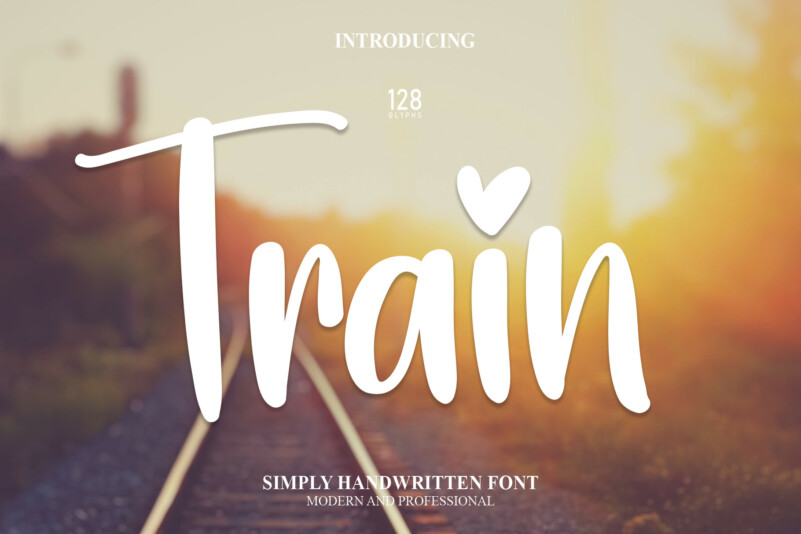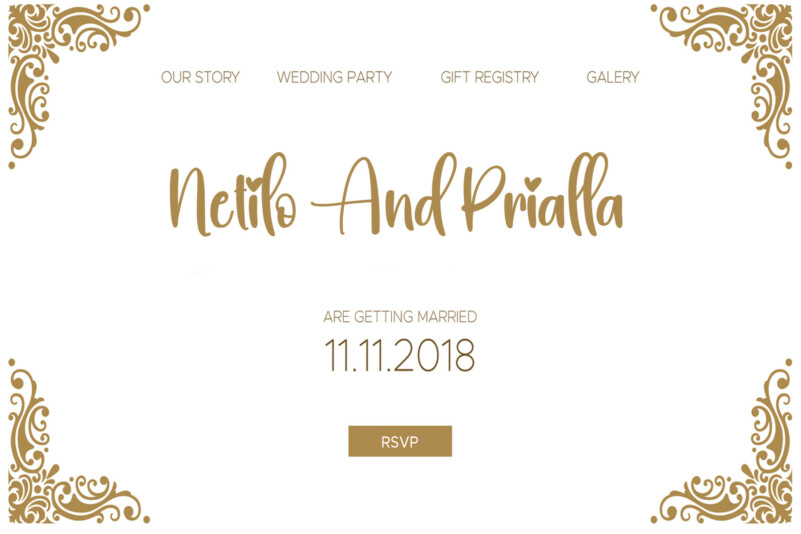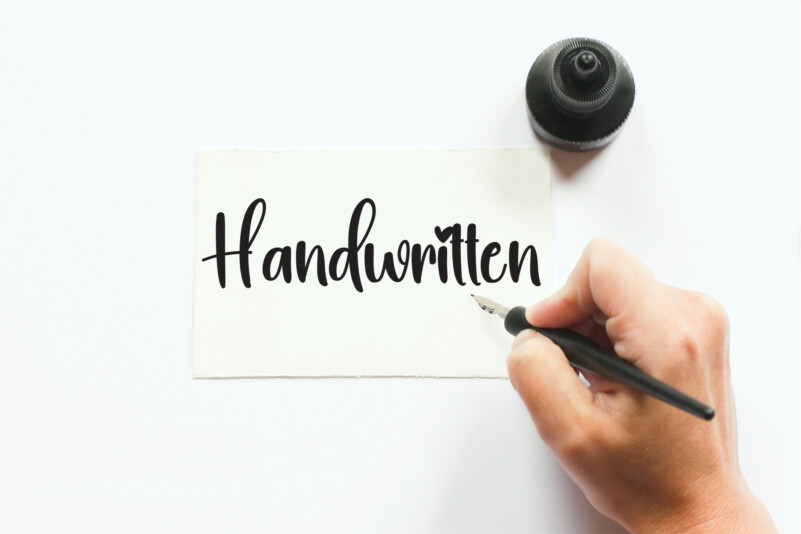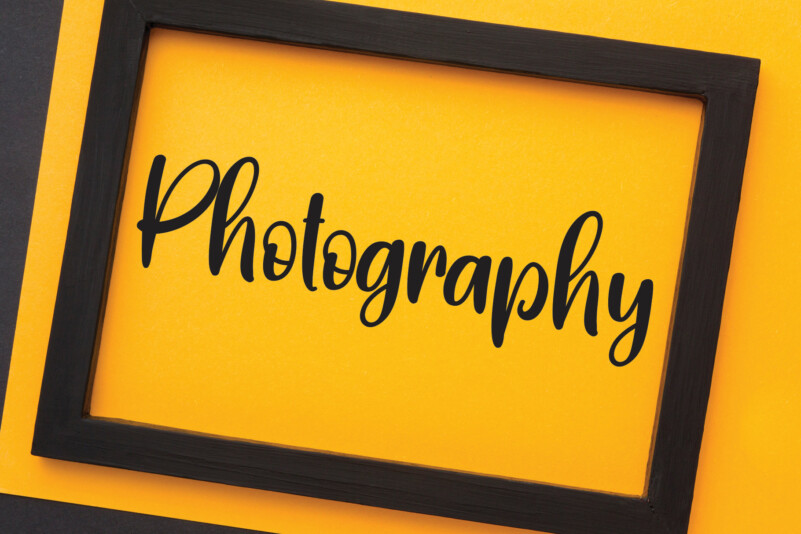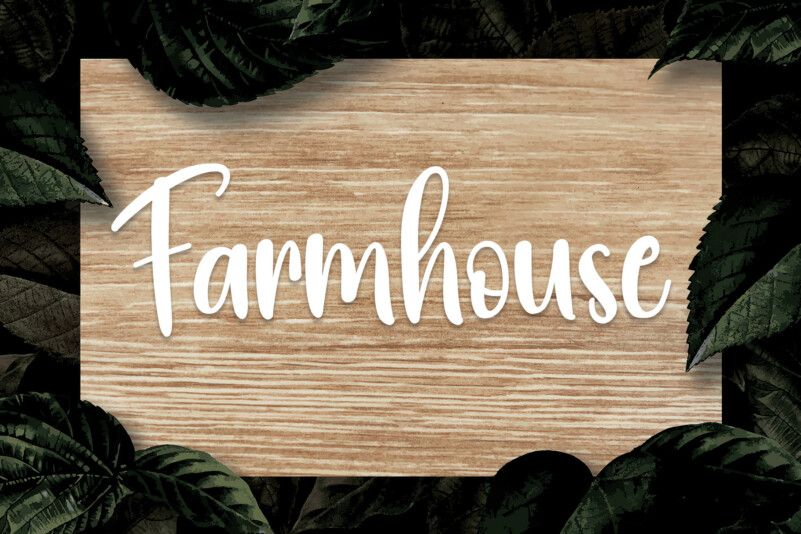
Train Display Font
Train Display Font is a sweet and cursive handwritten signature script font. This gentle font will look gorgeous on a variety of design ideas. It will add a joyful and romantic touch to each of your projects! Perfectly fit for branding, logo, wedding things, greeting cards, fashion, lookbook, marketing promotion, anytime you want to look fancy elegant but still casual.